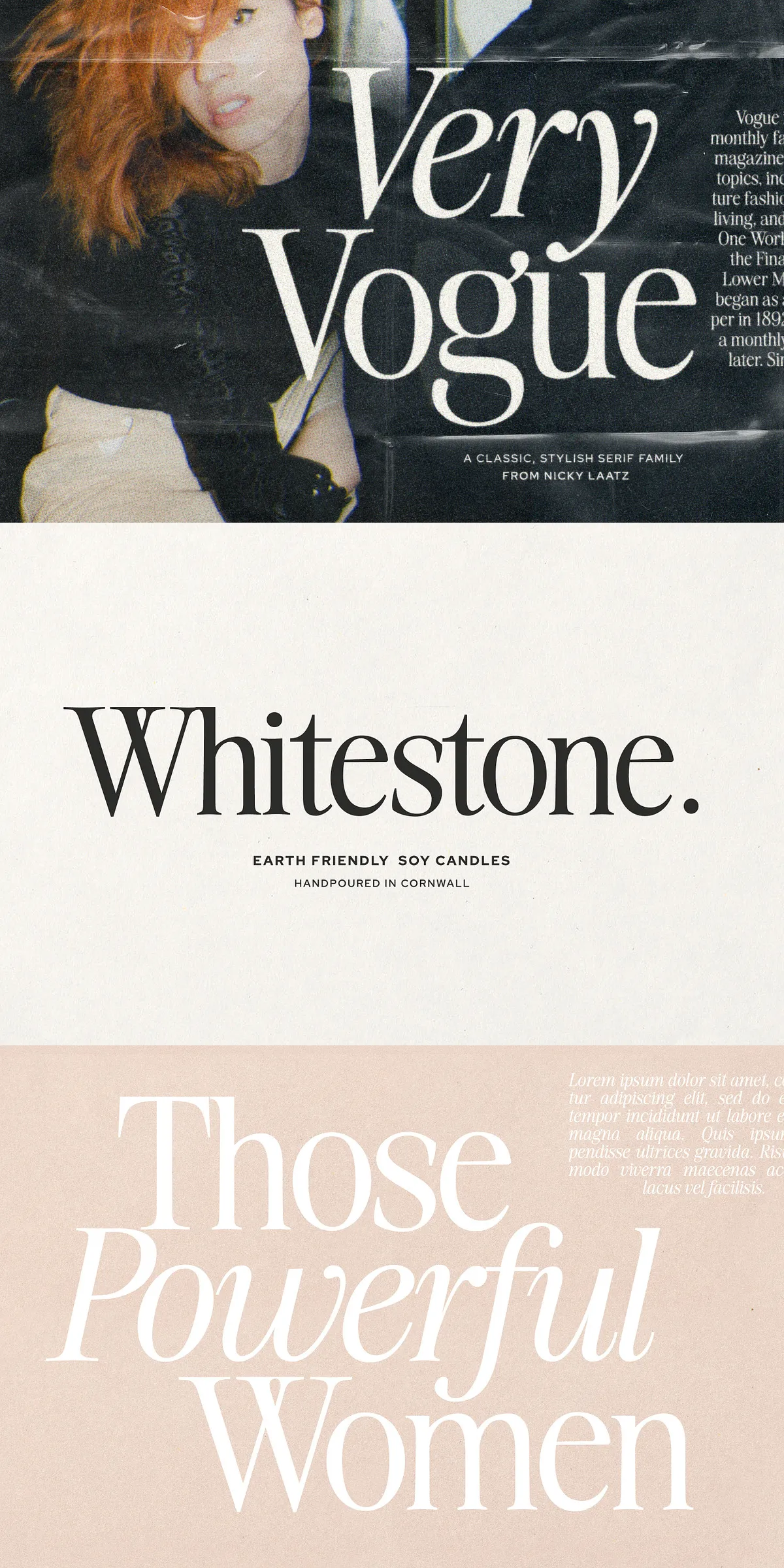
Step into the spotlight with Very Vogue Serif, a bold and beautifully refined serif font family that channels the unapologetic drama, luxurious curves, and timeless glamour of 1980s fashion magazines. Born from a love for cinematic pageantry and haute couture, this typeface doesn’t just announce your message—it commands attention with confidence and style. Whether you’re crafting editorial headlines, luxury branding, or high-impact visuals, Very Vogue Serif delivers the upper echelon of typographic sophistication.
Two Distinct Personalities: The Display & Text Subfamilies
Very Vogue Serif isn’t a single face—it’s a dynamic duo. With two specialized subfamilies, it adapts to every creative demand:
Display Subfamily: For Bold Statements and Headline Power
Designed for impact, the Display subfamily thrives in large optical sizes. It features higher contrast, tighter letter-spacing, and graceful, exaggerated serifs that scream luxury and drama. Perfect for magazine covers, film posters, campaign titles, and any design where your text must stand head and shoulders above the rest. Its refined curves and elegant lift make it ideal for headlines that need to captivate instantly.
Text Subfamily: For Substance, Substance
Don’t let the name fool you—this subfamily is just as powerful, just differently tuned. The Text subfamily features reduced contrast, a slightly heavier weight, and looser spacing, making it optimized for readability in long-form content. It’s built to shine in body copy, articles, editorial layouts, and digital platforms. But it doesn’t stop there—use it at large sizes for a bold, assertive look that still retains elegance. Think sleek fashion editorials, high-end product descriptions, or sophisticated web sections where clarity and style go hand in hand.
Designed for Every Creative Context
Very Vogue Serif isn’t just for the front page—it’s built for every stage of your project. From concept to delivery, it performs with precision and flair:
- High-Contrast Visual Impact – The dramatic stroke variation enhances visual rhythm, making every word a focal point.
- Optical Size Optimization – Each subfamily is engineered to perform perfectly at its intended size range—no squinting, no distortion.
- Full Multilingual Support – Includes extended character sets for French, German, Italian, Spanish, Portuguese, Dutch, Swedish, and more—perfect for global branding and international publications.
- OpenType Features – Access stylish alternates, ligatures, and contextual substitutions to unlock subtle design variations without breaking workflow.
Where Glamour Meets Functionality
This is more than a typeface—it’s a creative partner. Use Very Vogue Serif to:
- Fashion & Lifestyle Branding: Launch premium collections with logos and packaging that whisper “luxury” without saying a word.
- Editorial & Magazine Design: Elevate mastheads, pull quotes, and article titles with a touch of vintage-inspired drama.
- Advertising & Campaigns: Create bold digital banners, print ads, and social media visuals that stop the scroll.
- Web & UI Design: Build elegant landing pages, portfolio sites, and content hubs with typography that feels both modern and timeless.
- Event & Wedding Branding: Infuse invitations, programs, and signage with a retro-futuristic charm that stands out from the crowd.
Make Every Line a Statement
Very Vogue Serif doesn’t just follow trends—it defines them. It’s the choice for designers who refuse to blend in. With its duality, refinement, and fierce character, this font family offers both grace and grit, delicacy and dominance. Use it to tell stories of elegance, power, and legacy.